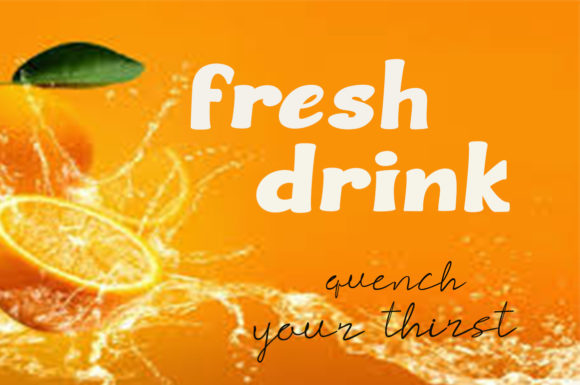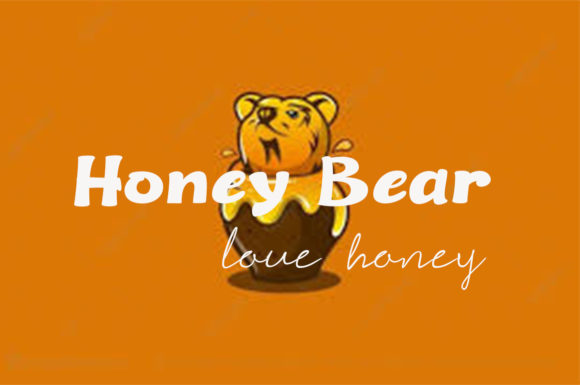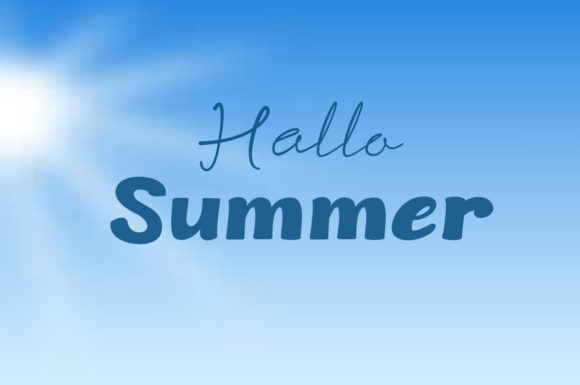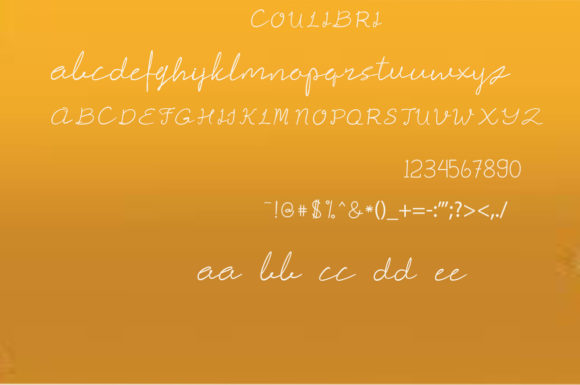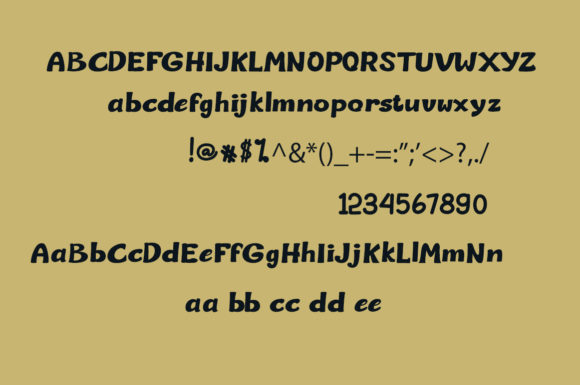
Introduction to Dolphin Coulibri Font
Dolphin Coulibri consists of two fonts (display and script) designed to complement each other perfectly.
Together or apart, these fonts are ideal for adding a chic and cheery touch to your crafts .
Key Features of Dolphin Coulibri Font